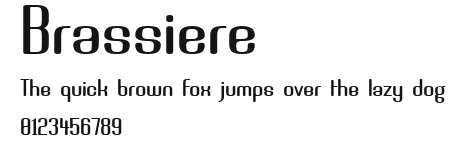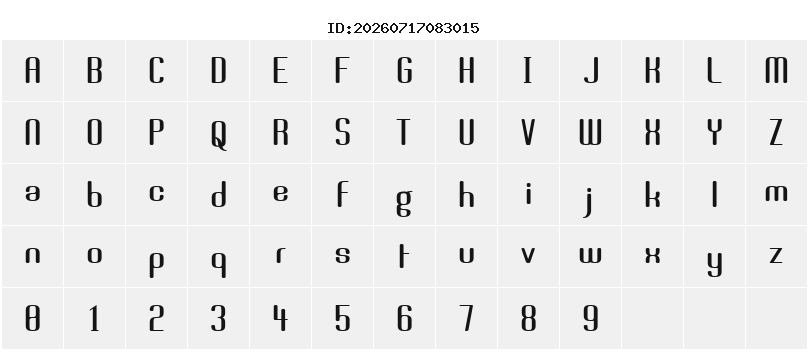
• Font Name: Brassiere
• Designer: Graham Meade
About Brassiere.ttf
Brassiere.ttf is a modern, elegant sans-serif font designed for ultimate readability and visual harmony. Perfect for branding, headlines, web design, and print materials.